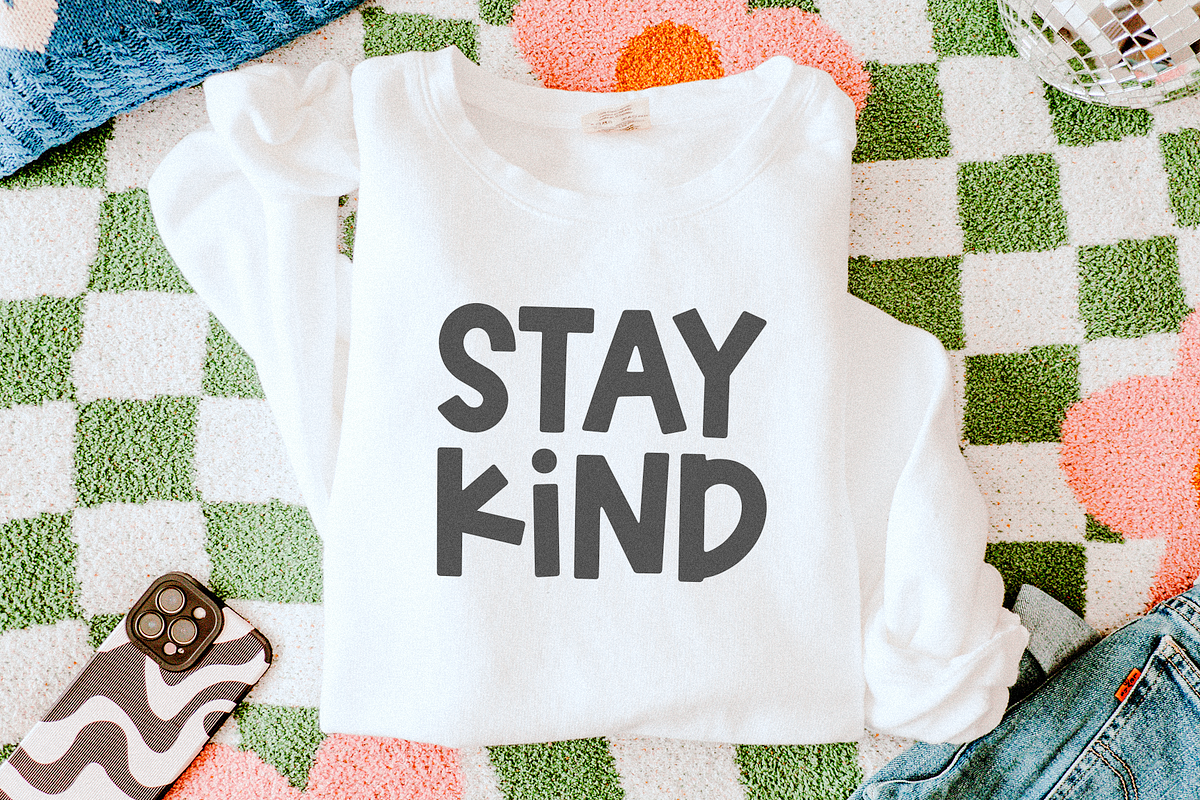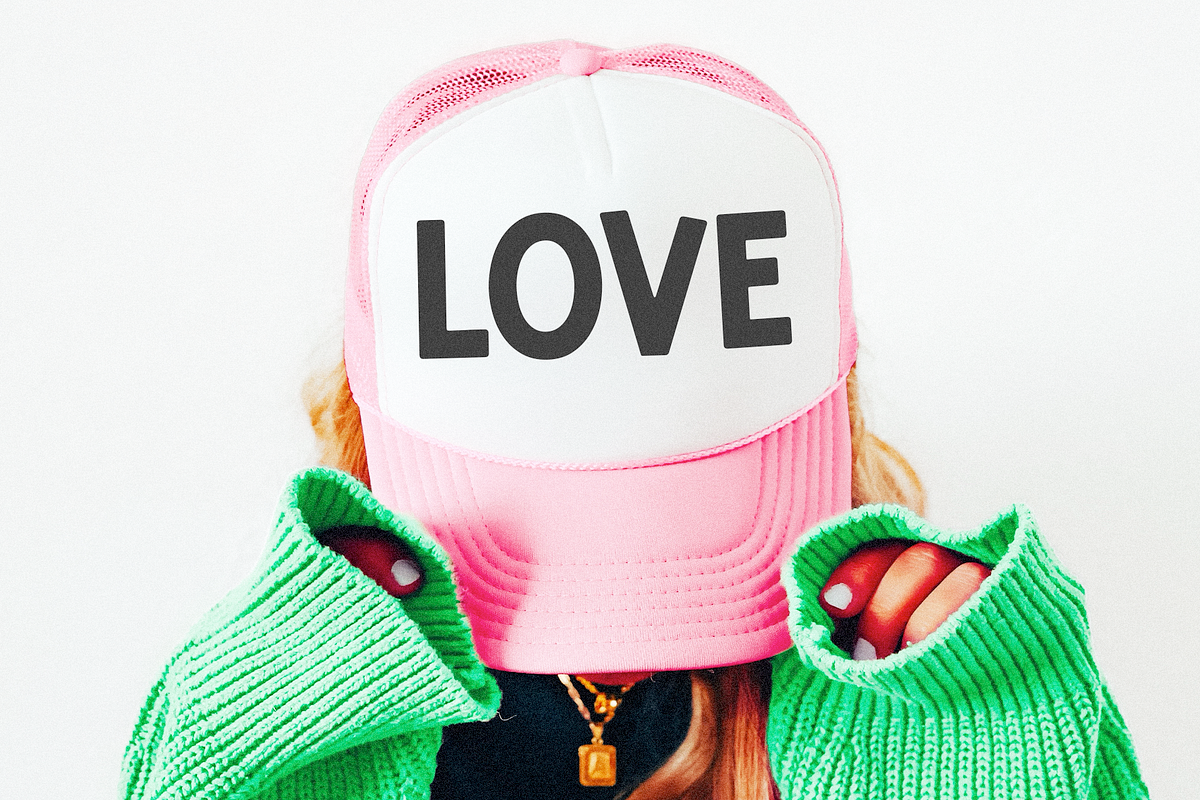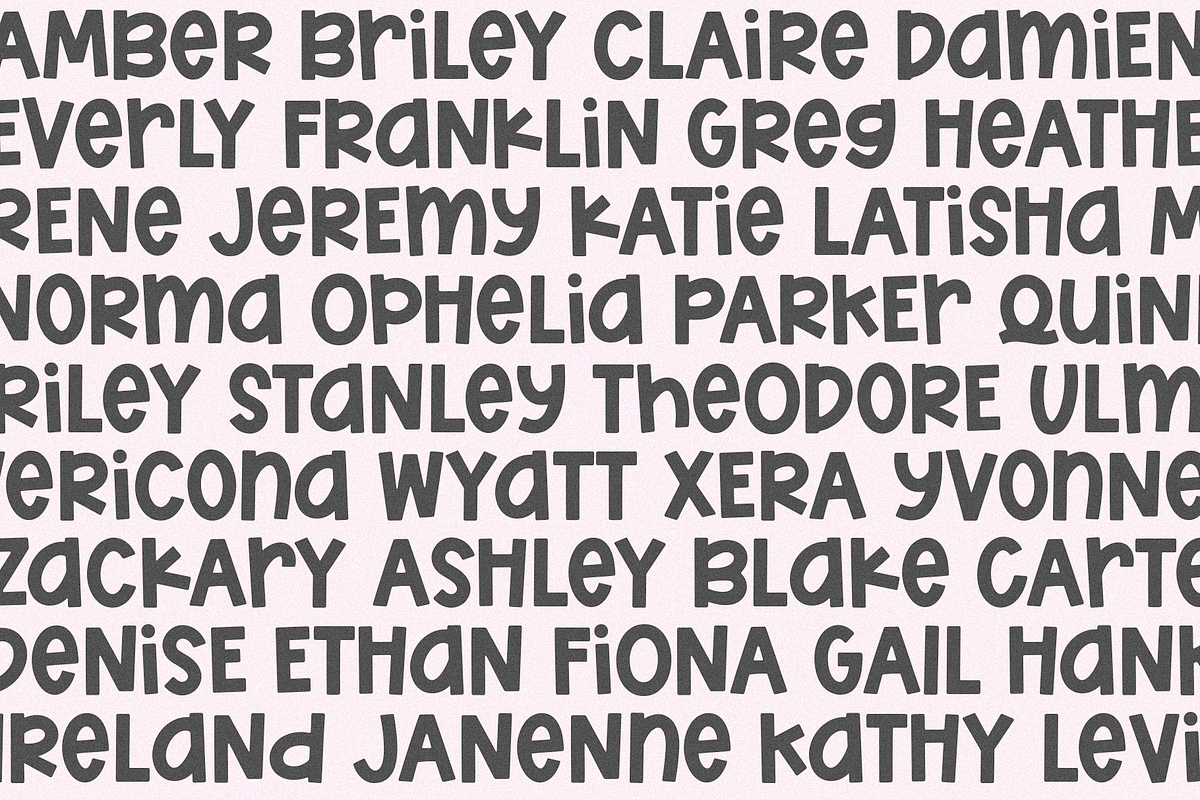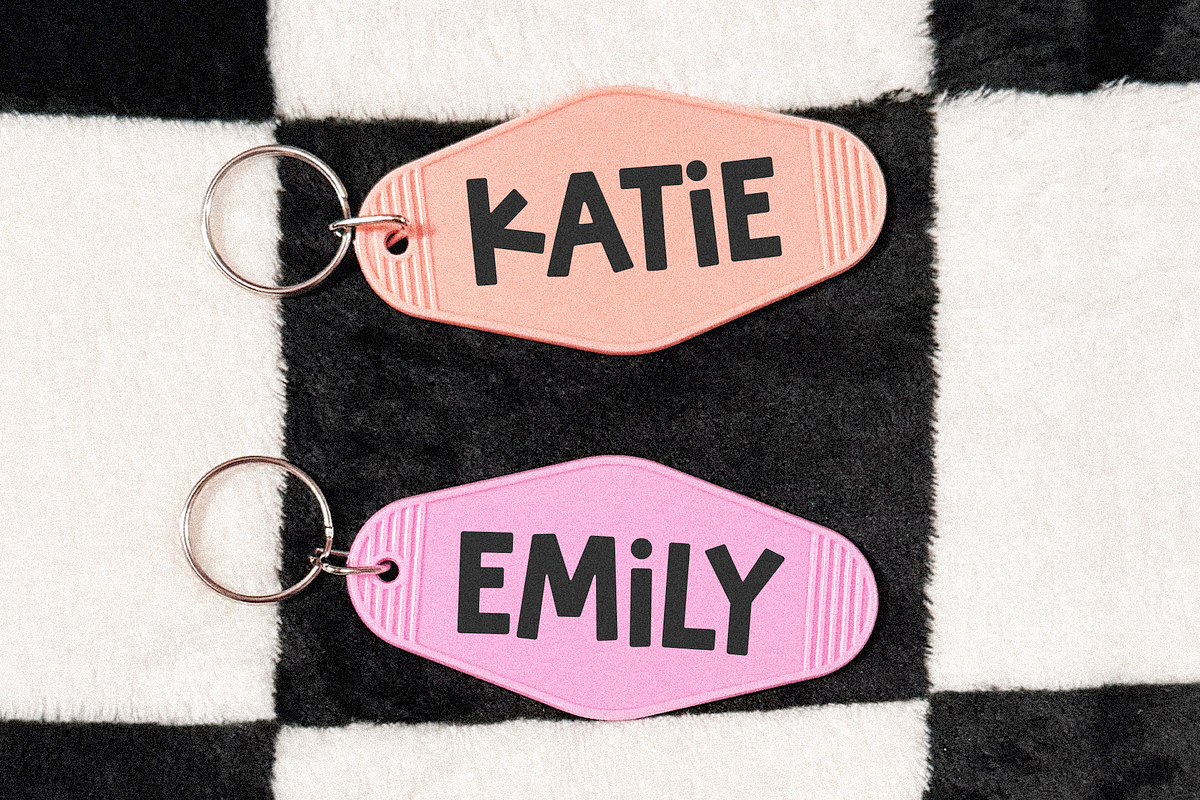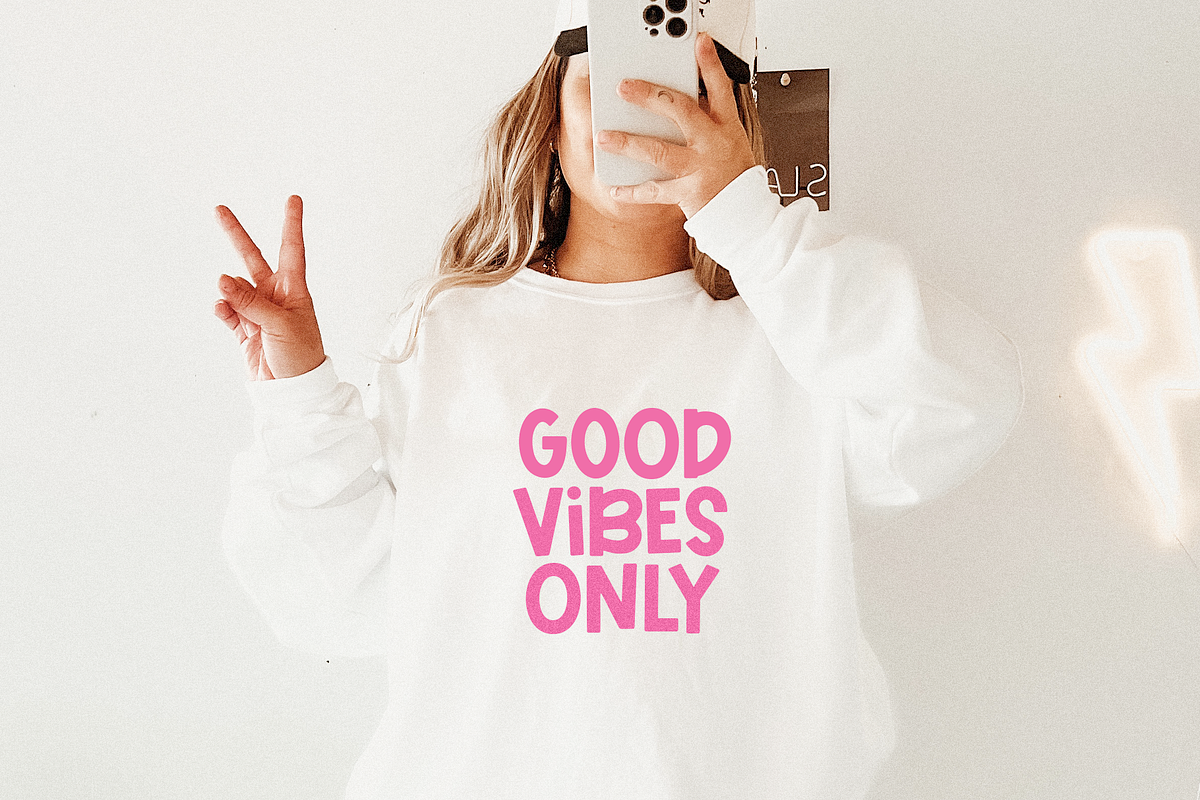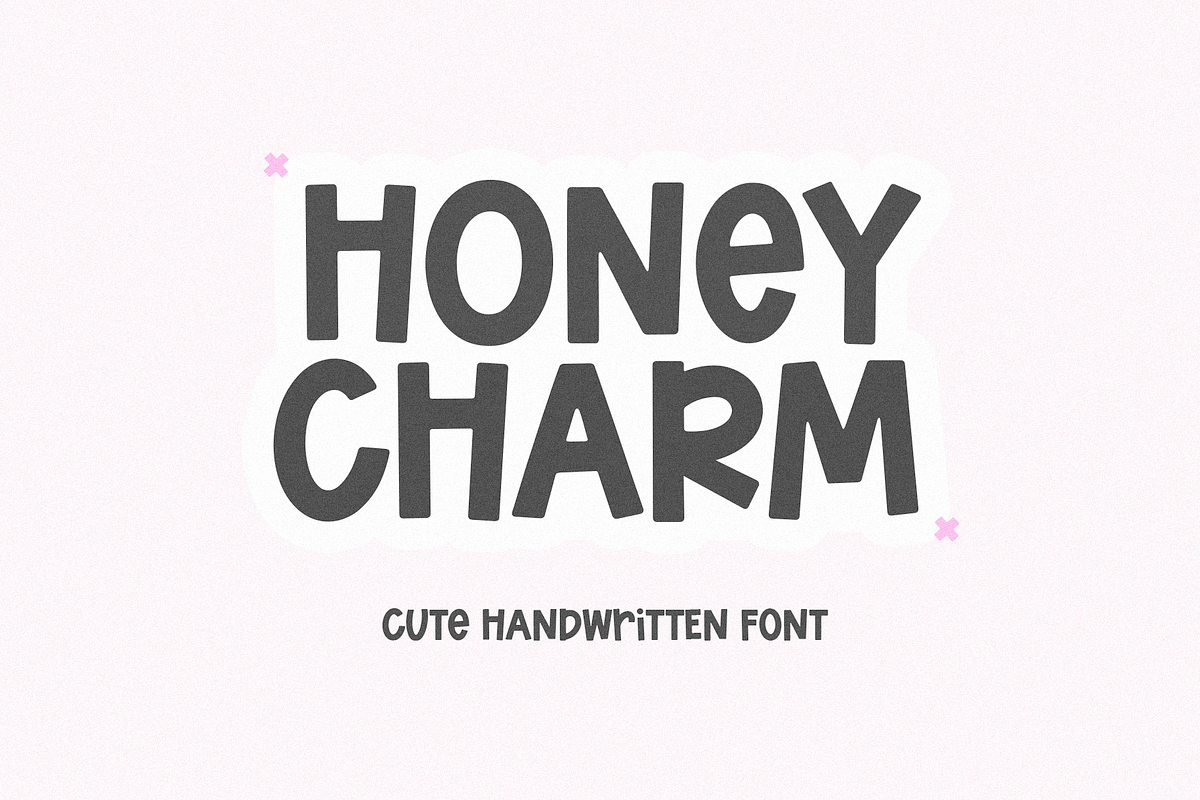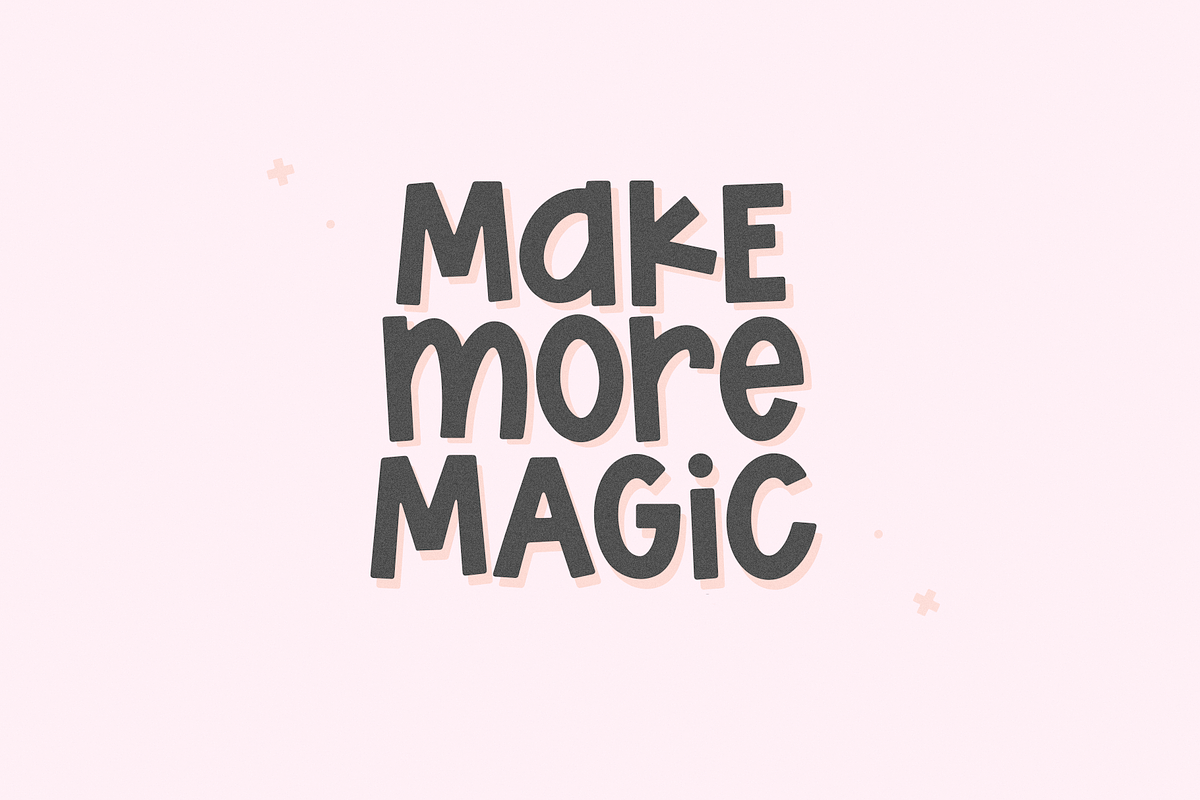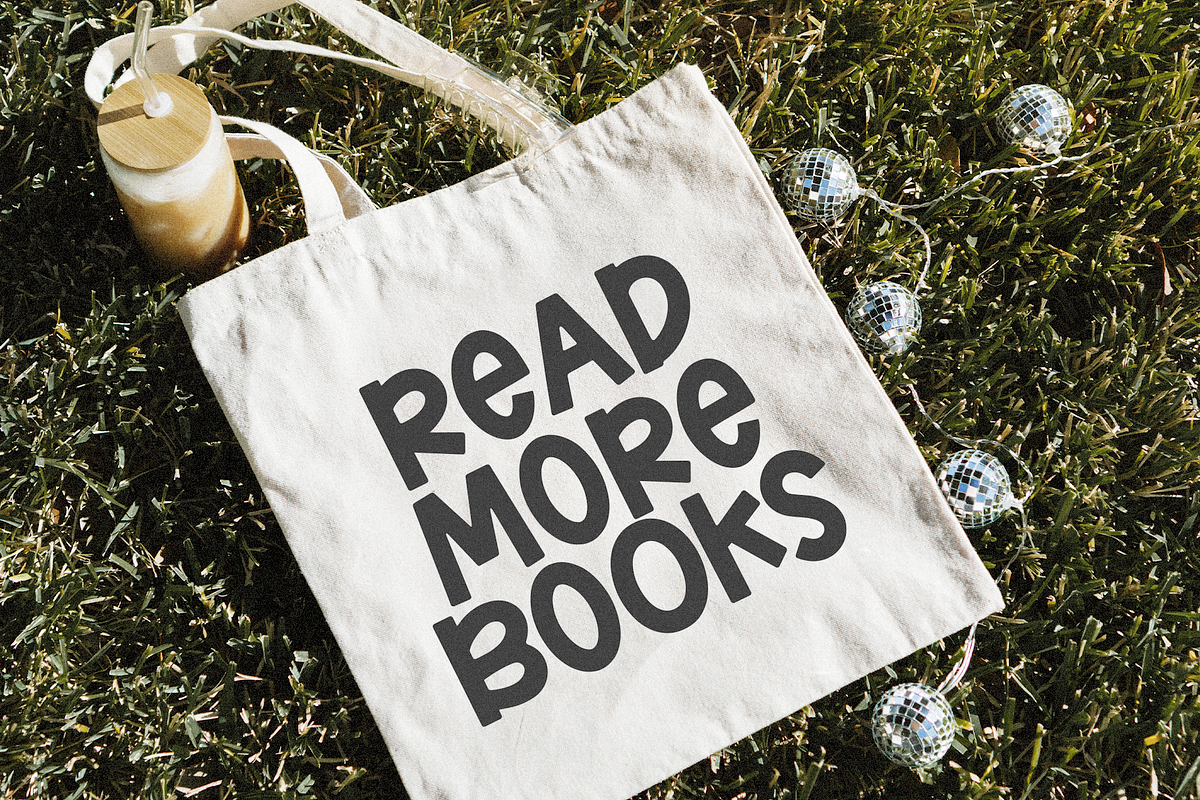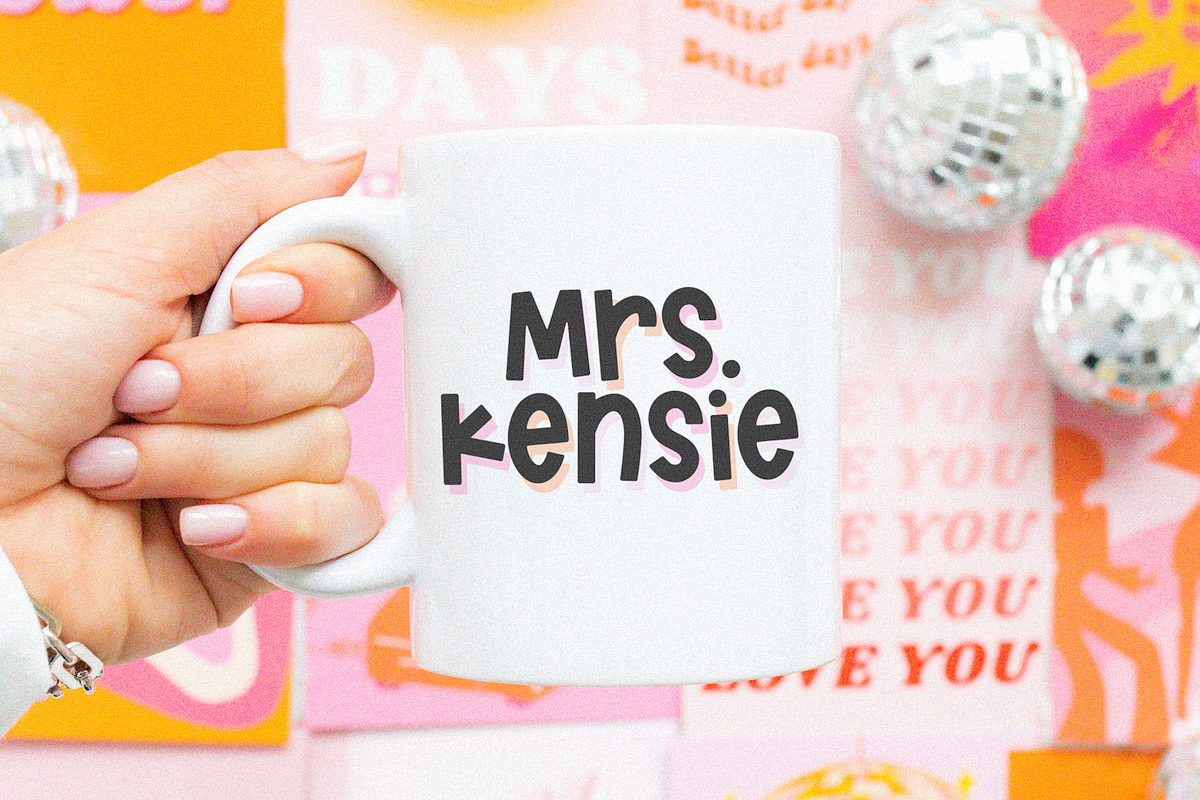
Honey Charm | Cute Font
Honey Charm is a cute and quirky handwritten font.
This font is perfect for logos, cricut projects, shirts, svg files, canva, goodnotes, lasers, teachers and more!